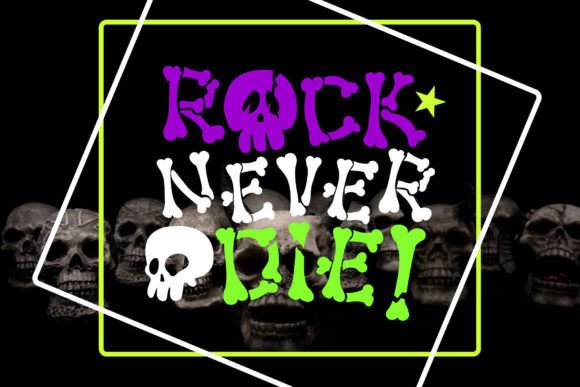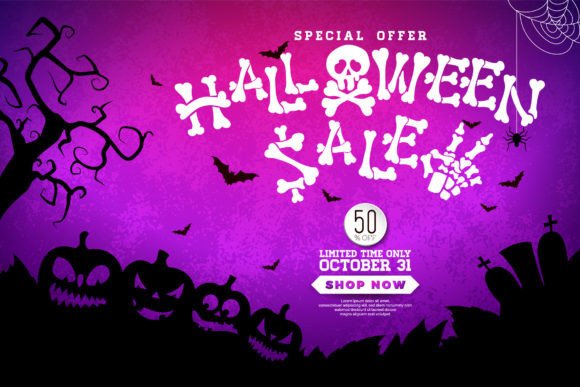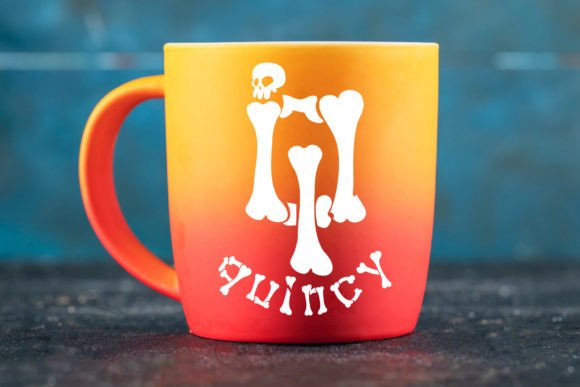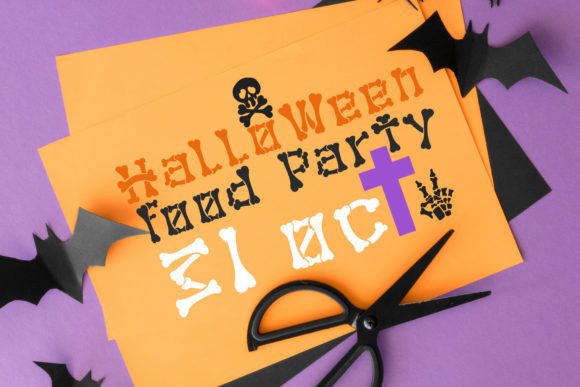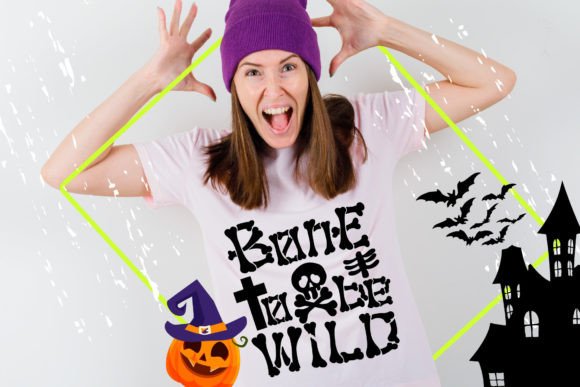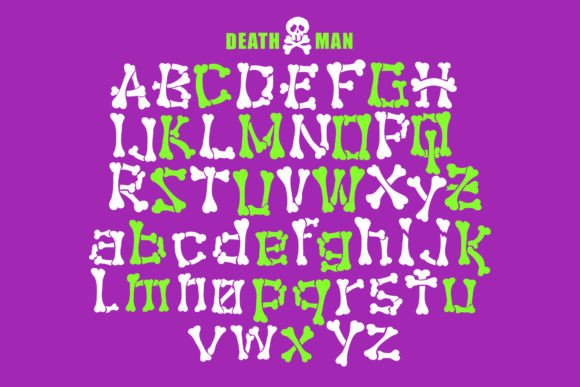
Introducing Death Man Font: The Ultimate Spooky Addition to Your Halloween Projects
As the spookiest time of the year approaches, designers and crafters are on the lookout for the perfect font to add a dramatic touch to their October projects. Look no further than the Death Man Font, a spooky and fun Halloween decorative font that’s sure to send chills down the spines of your audience. In this article, we’ll dive into the features and benefits of the Death Man Font, and explore how it can elevate your Halloween designs to the next level.
What is Death Man Font?
Death Man Font is a unique and captivating font designed specifically for Halloween-themed projects. Its spooky and playful design makes it perfect for creating eye-catching titles, headings, and graphics that will leave a lasting impression on your audience. Whether you’re working on a DIY craft project, a Halloween party invitation, or a spooky-themed website, Death Man Font is the ideal choice.
Key Features of Death Man Font
So, what sets Death Man Font apart from other fonts? Here are some of its key features:
- Spine-tingling design: Death Man Font boasts a spooky and fun design that’s sure to send shivers down the spines of your audience.
- PUA encoded: This font is PUA (Private Use Area) encoded, which means you can access all the amazing glyphs and ligatures with ease.
- Easy to use: Death Man Font is designed to be user-friendly, making it easy to incorporate into your projects.
- Perfect for Halloween projects: This font is specifically designed for Halloween-themed projects, making it the perfect choice for designers and crafters.
Benefits of Using Death Man Font
So, why should you choose Death Man Font for your Halloween projects? Here are some benefits of using this font:
- Adds a dramatic touch: Death Man Font adds a spooky and dramatic touch to your projects, making them stand out from the crowd.
- Increases engagement: The unique design of this font is sure to grab the attention of your audience and keep them engaged.
- Versatile: Death Man Font can be used for a wide range of projects, from DIY crafts to commercial designs.
- Easy to pair with other fonts: This font pairs well with other fonts, making it easy to create a cohesive design.
Tips and Tricks for Getting the Most Out of Death Man Font
Here are some tips and tricks for getting the most out of Death Man Font:
- Use it sparingly: Use Death Man Font sparingly to create a dramatic impact.
- Pair it with other fonts: Pair Death Man Font with other fonts to create a cohesive design.
- Experiment with colors: Experiment with different colors to create a unique and eye-catching design.
- Have fun: Most importantly, have fun and get creative with Death Man Font!
In conclusion, Death Man Font is a spooky and fun Halloween decorative font that’s perfect for adding a dramatic touch to your October projects. With its PUA encoded features, easy-to-use design, and versatile nature, this font is a must-have for designers and crafters. Whether you’re working on a DIY craft project or a commercial design, Death Man Font is sure to send chills down the spines of your audience. So why wait? Download Death Man Font today and get creative!